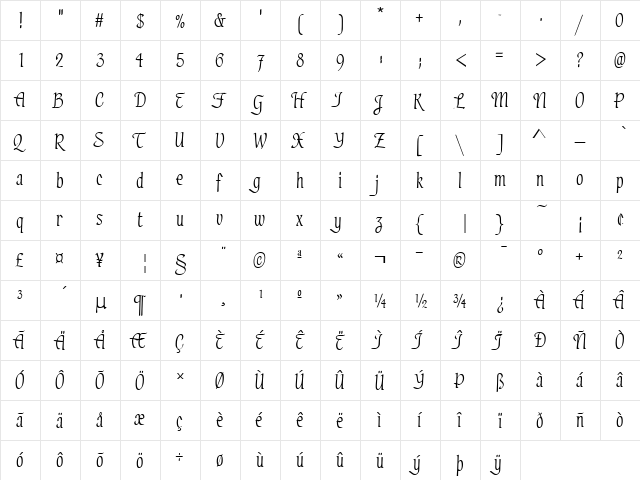
PT Lullaby Normal Font Preview
PT Lullaby Normal
Design Context for PT Lullaby Typeface
PT Lullaby takes a measured approach to typography — its balanced proportions and neutral character make it a reliable workhorse for both digital and print work.